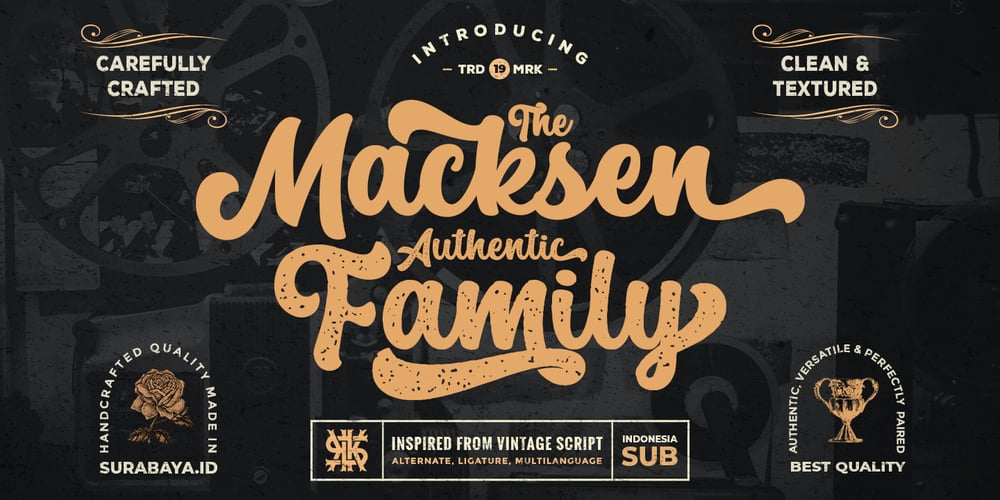
The Macksen
The Macksen font
The Macksen Font Family was designed by Arif Dwi and published by Kotak Kuning Studio. The Macksen contains 2 styles and family package options. The Macksen is a new, bold script font which has two styles: Clean and Textured. With those kind of styles, The Macksen will give your designs a vintage and classic look.The Macksen is great for logotype, branding design, logo design, digital lettering arts, t-shirts/apparel, posters, magazines, signs, advertising design, and any vintage design needs.